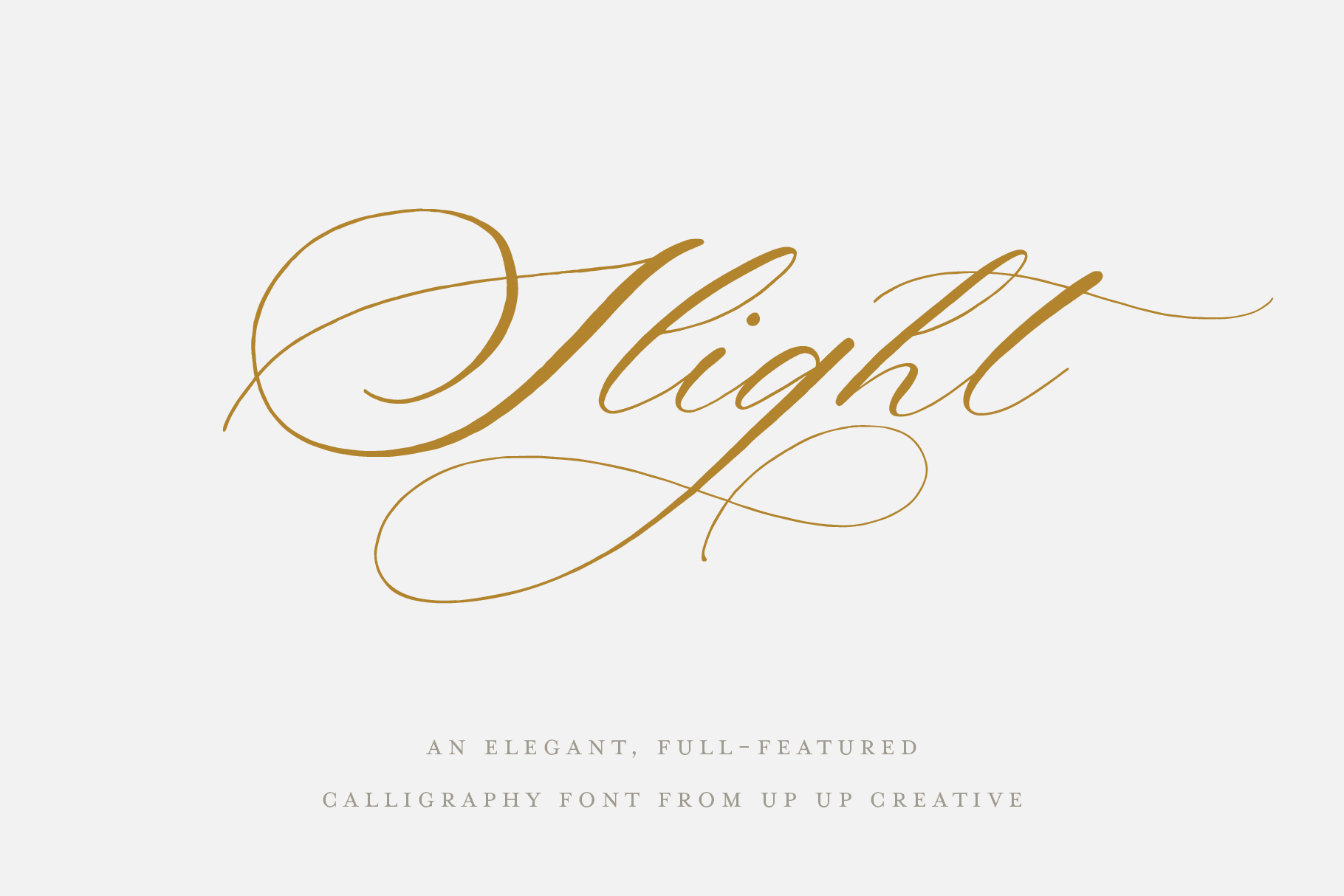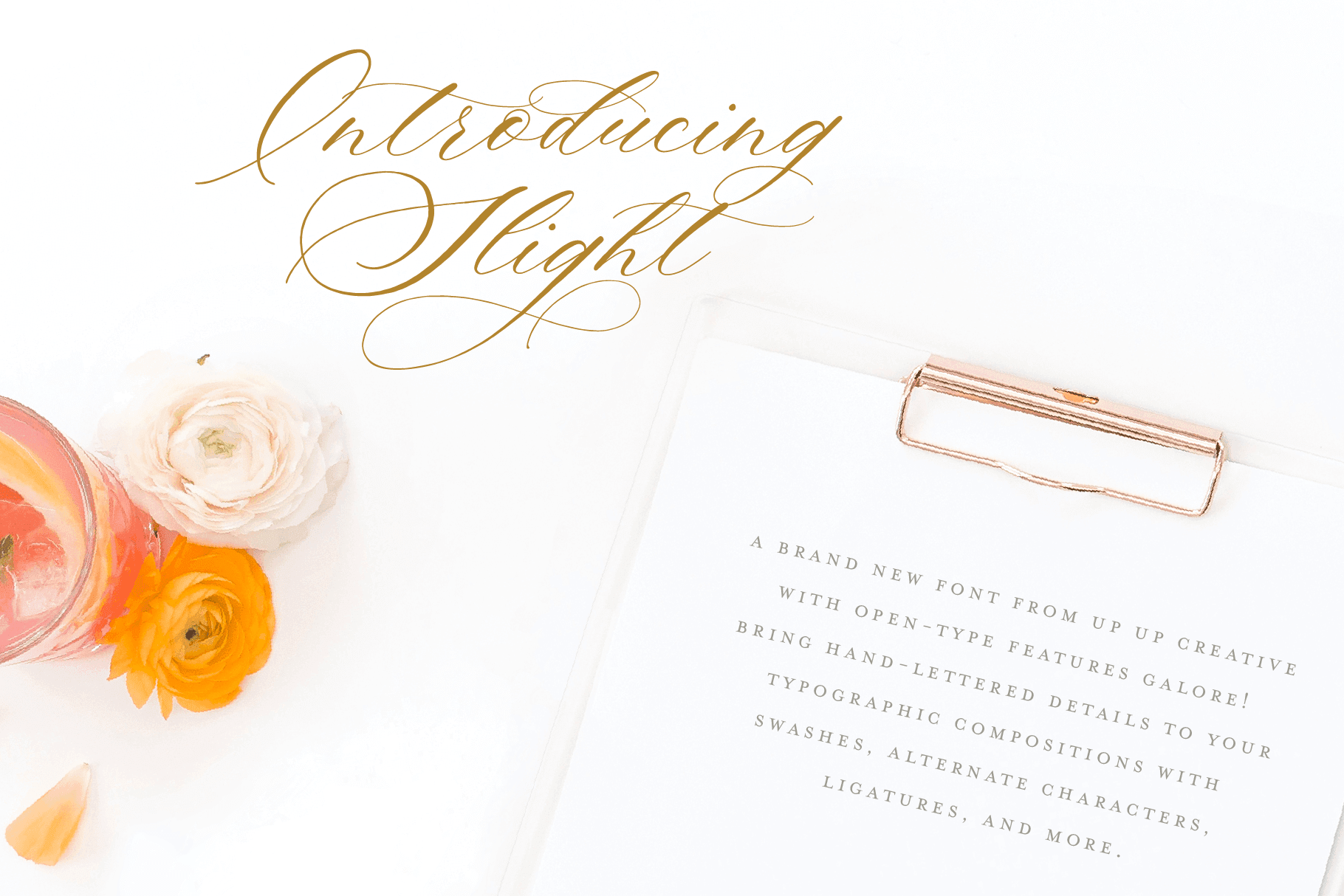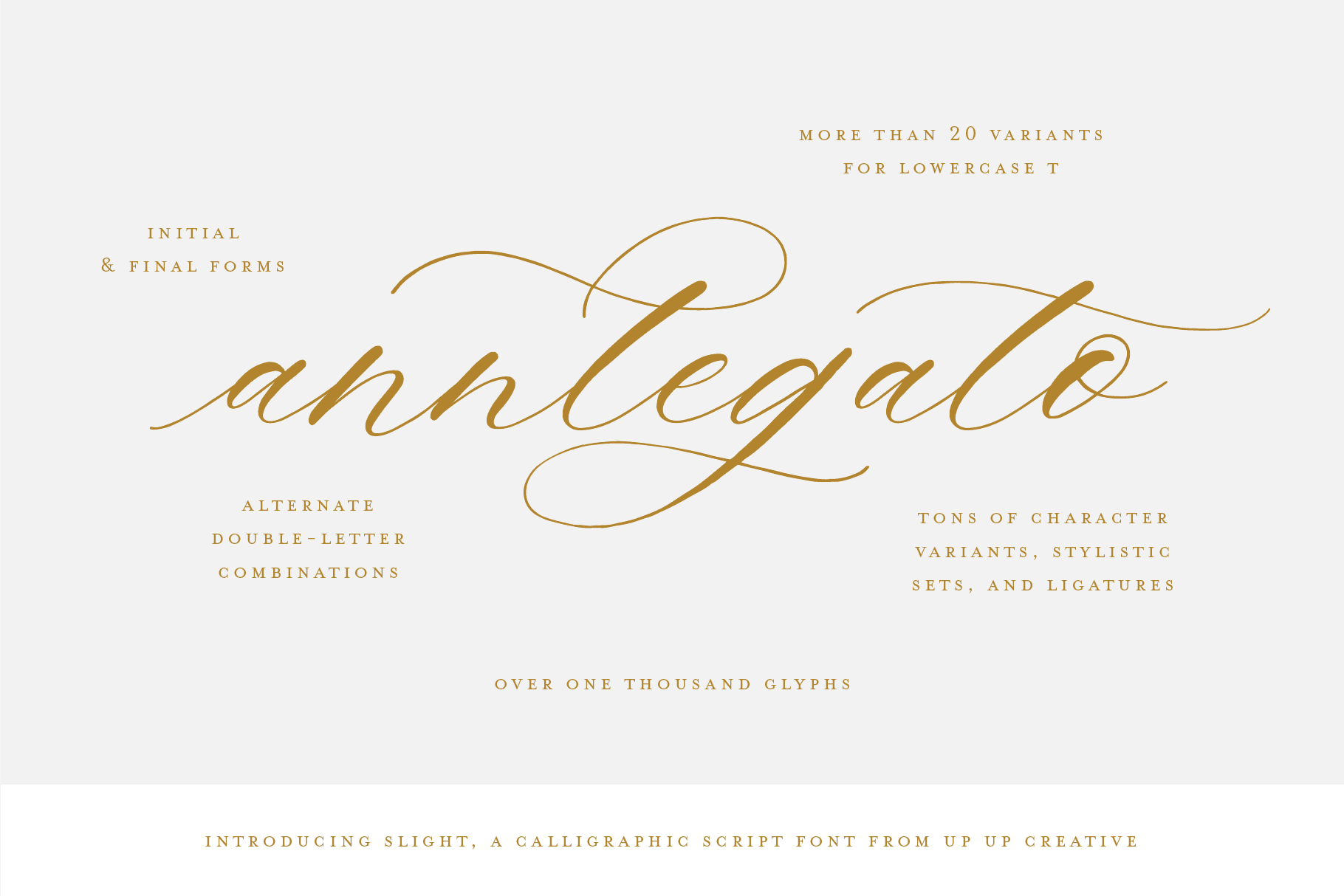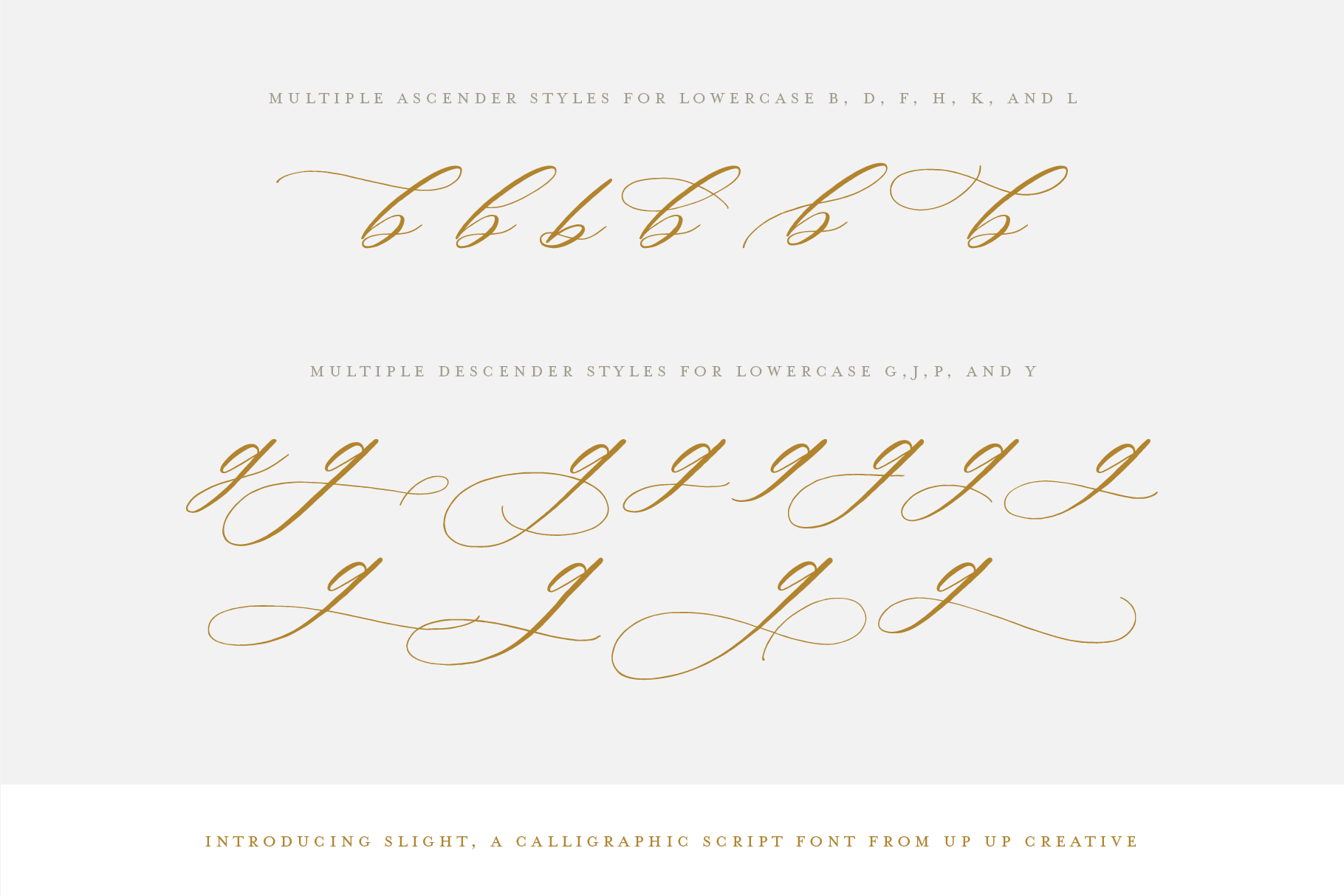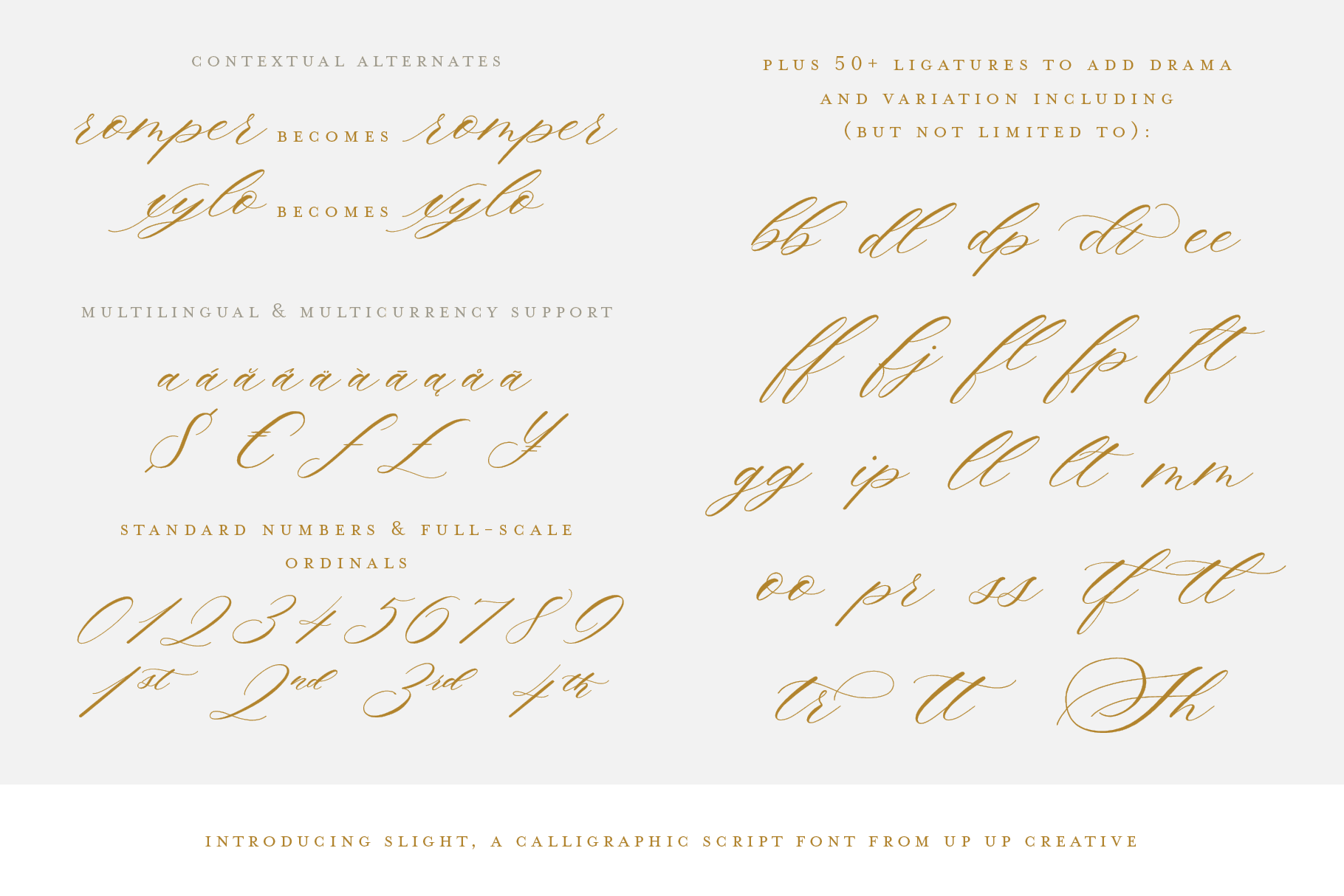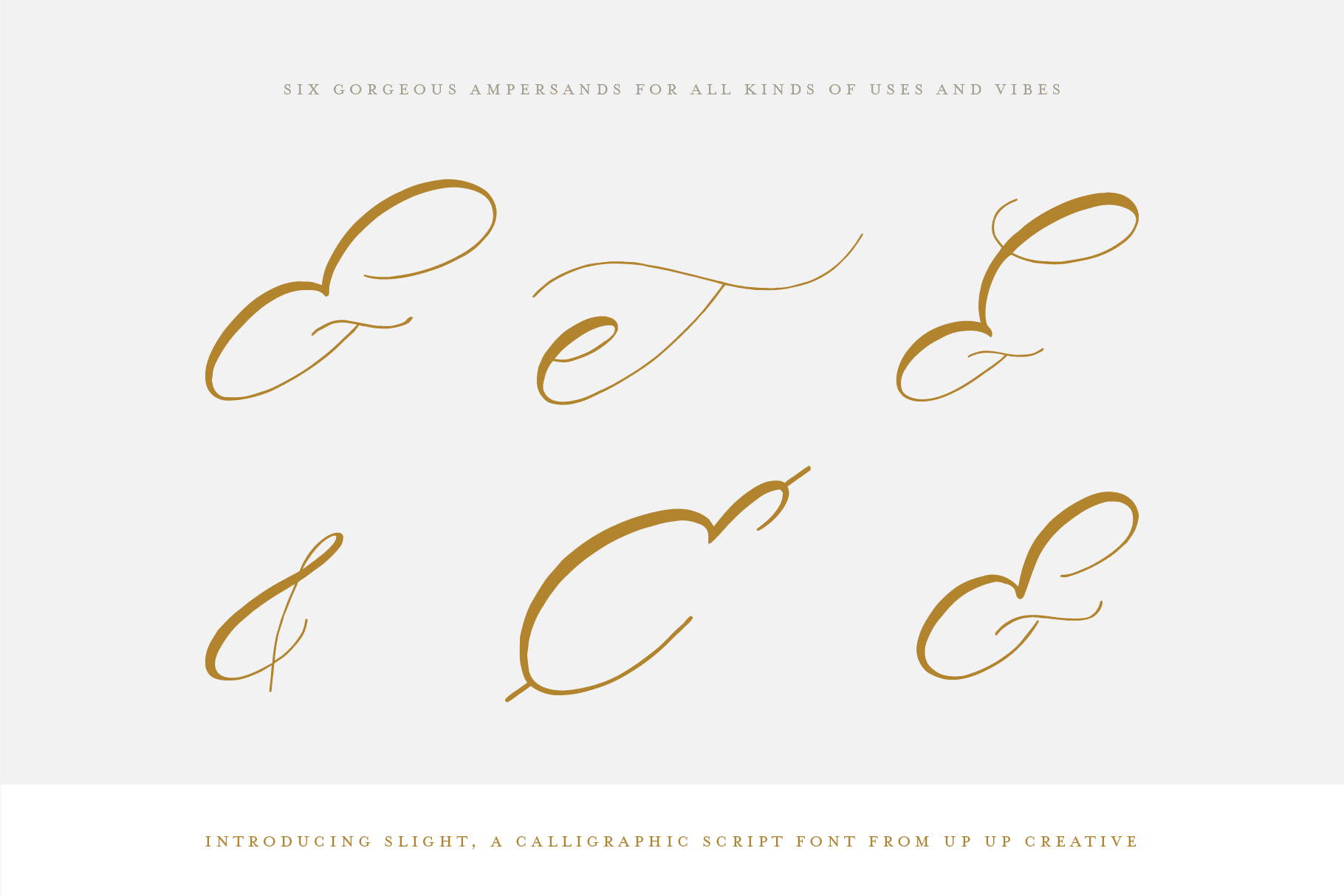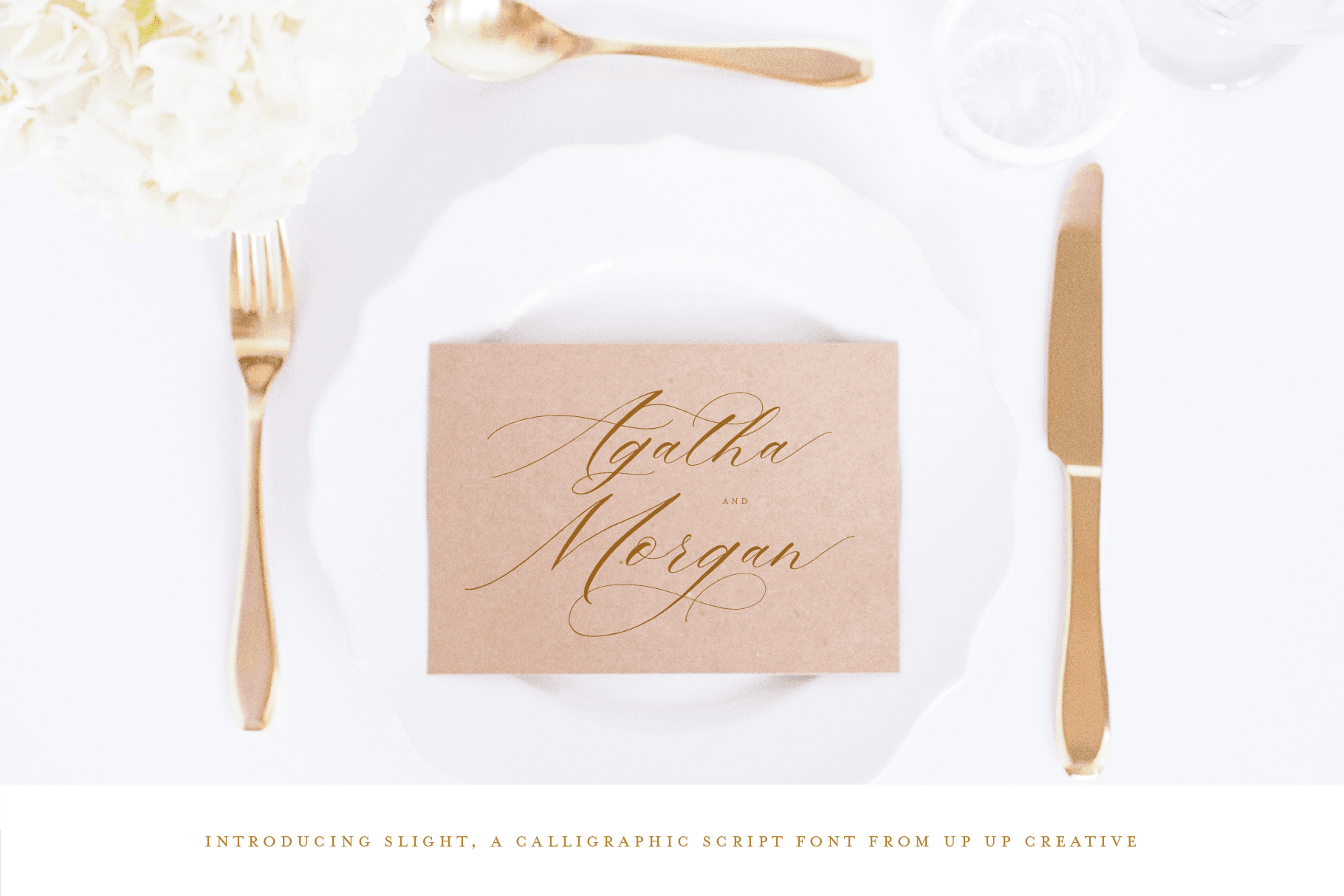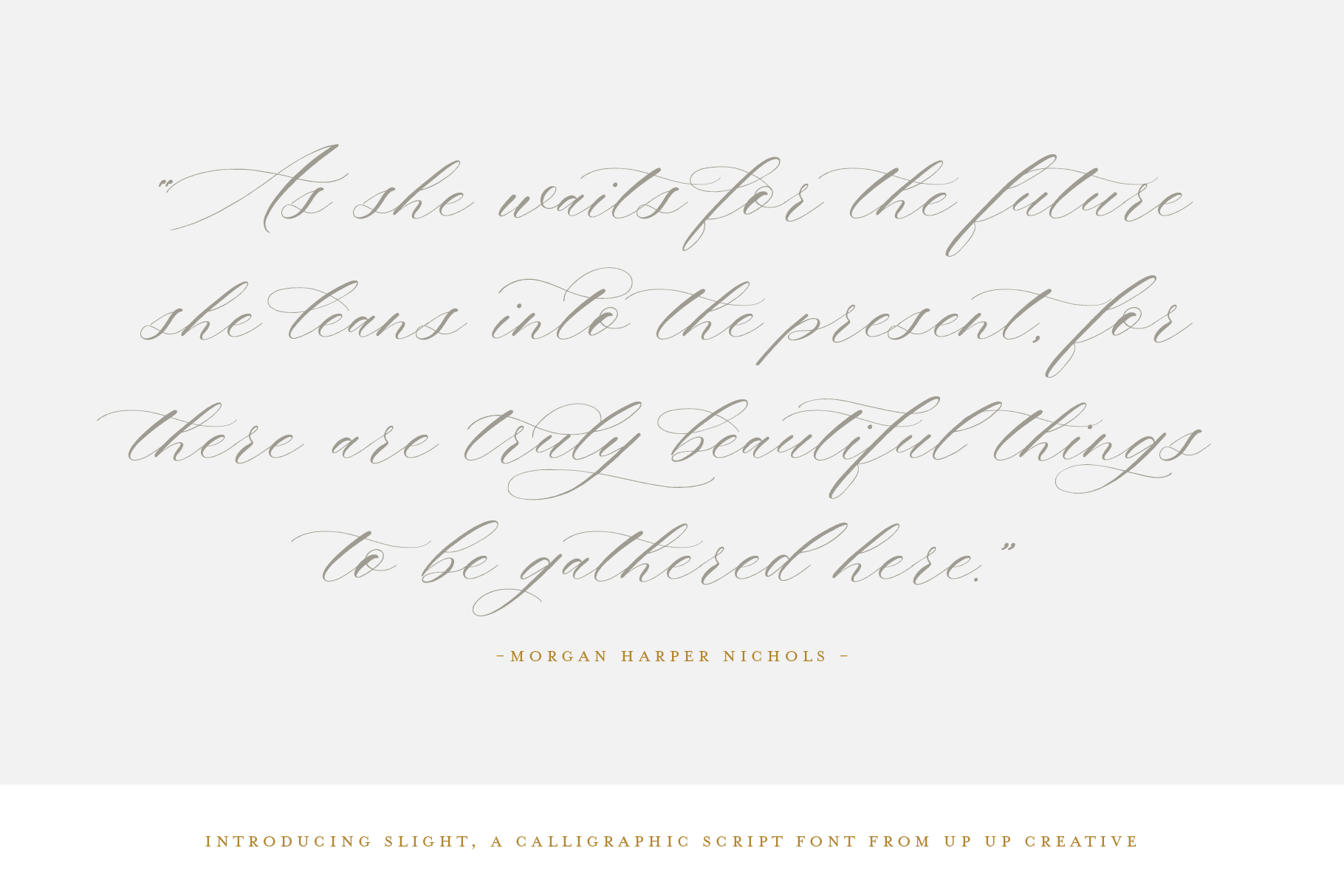
Slight Script Font
Slight is an elegant, full-featured script font with tons of alternate characters and OpenType features. Hand-lettered with a heavy right slant, Slight is particularly well-suited to invitations, branding, and editorial design. Slight comes with more than 1000 glyphs, including multiple versions of all ascending and descending letters, making it lots of fun to play with layouts and compositions.
OpenType Features
- contextual alternates
- character variants
- standard and discretionary ligatures
- initial and terminal forms
- fractions
- localized forms (multi-language and multi-currency support)
- ordinals and superscripts
- stylistic alternates
- stylistic sets
Includes 53 ligatures
- Released in 2019
- Includes 1095 glyphs
- 1 Style, 1 Weight